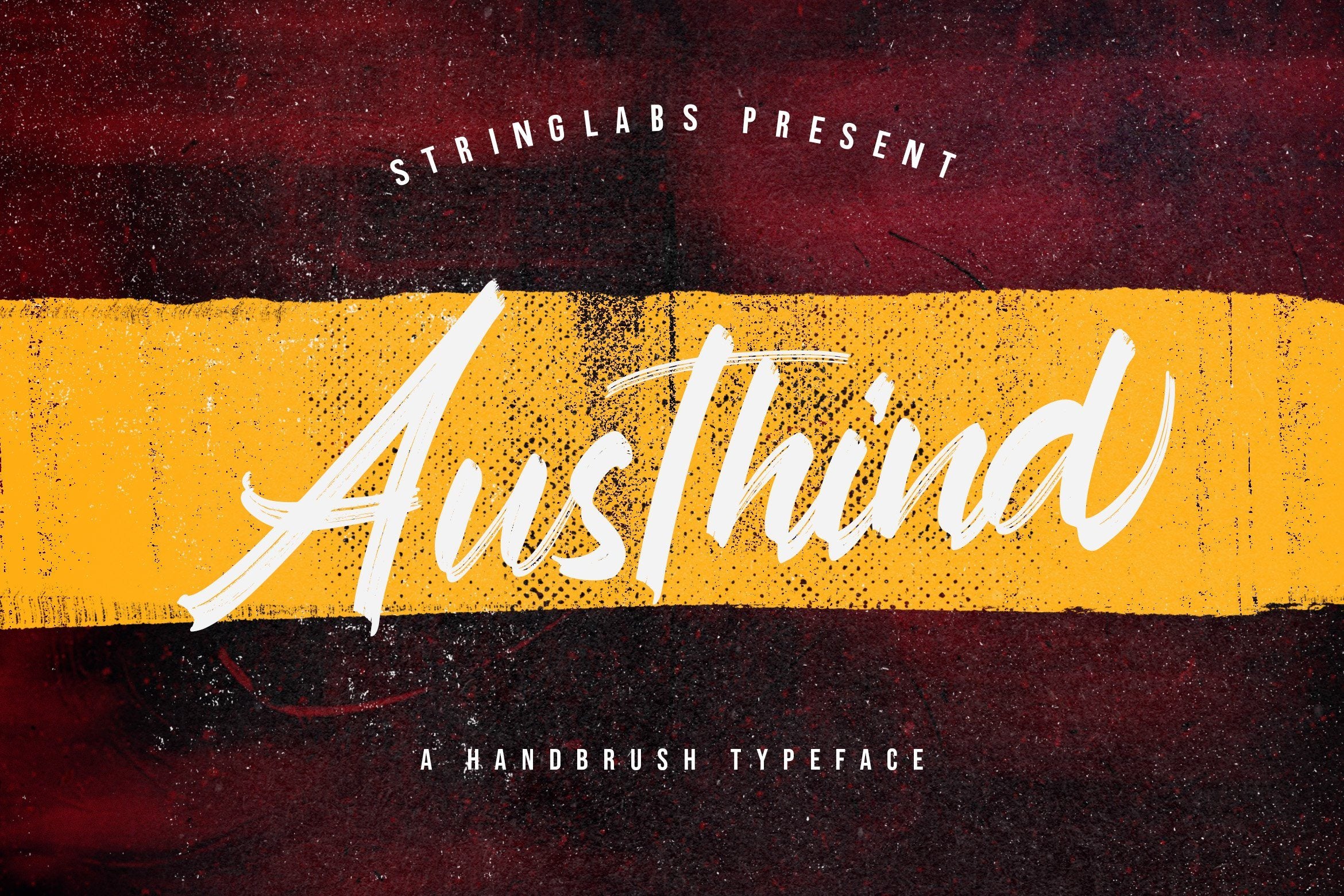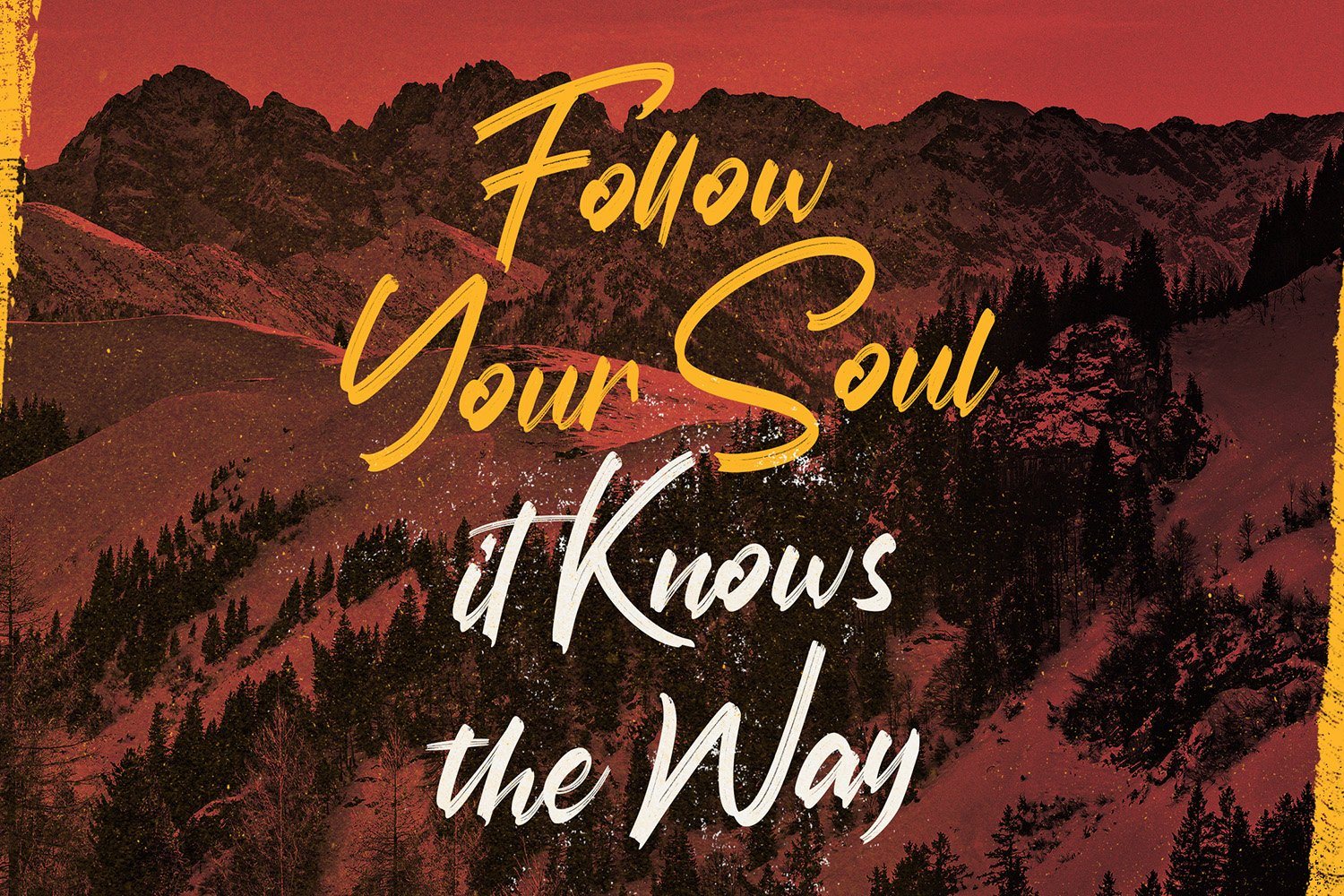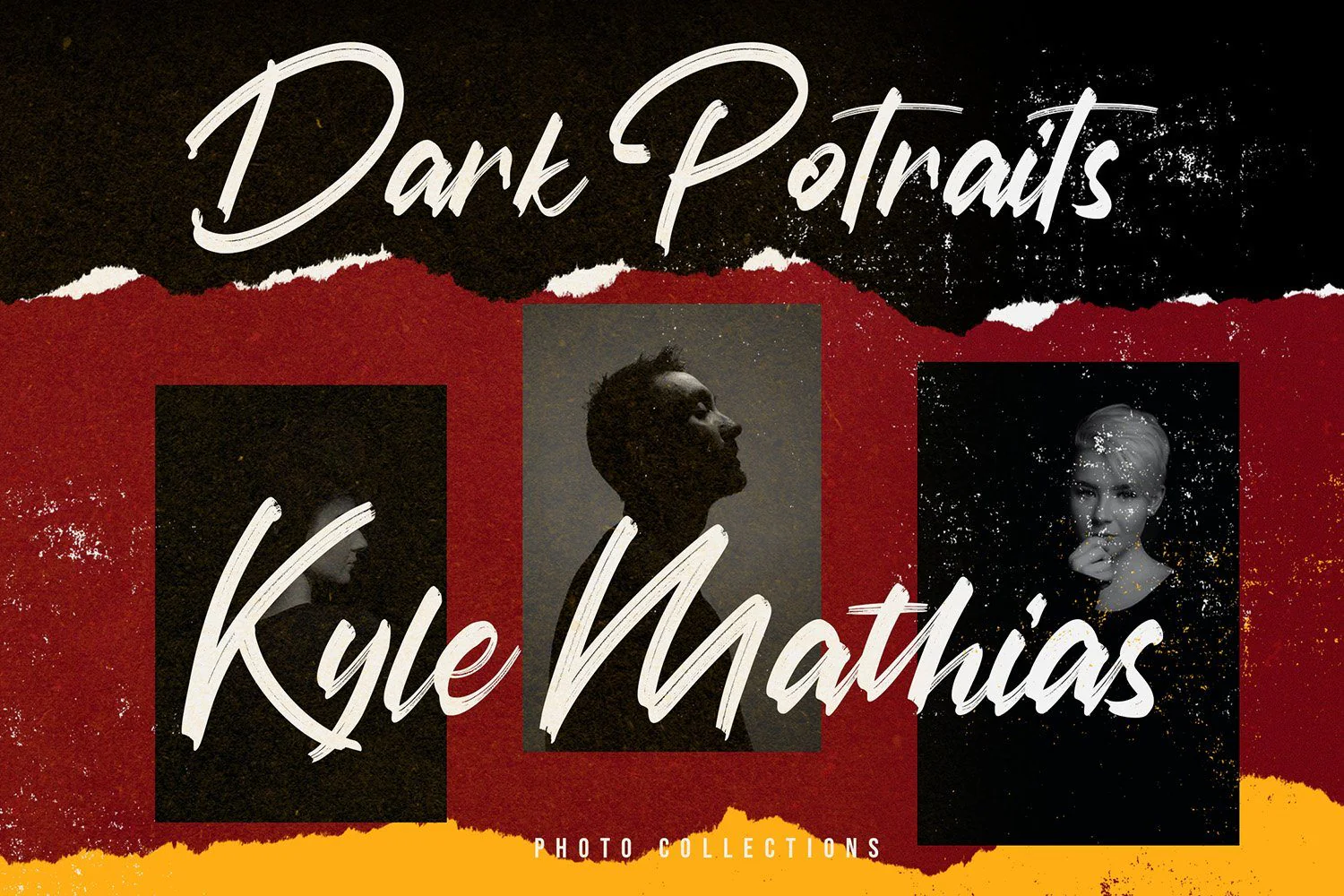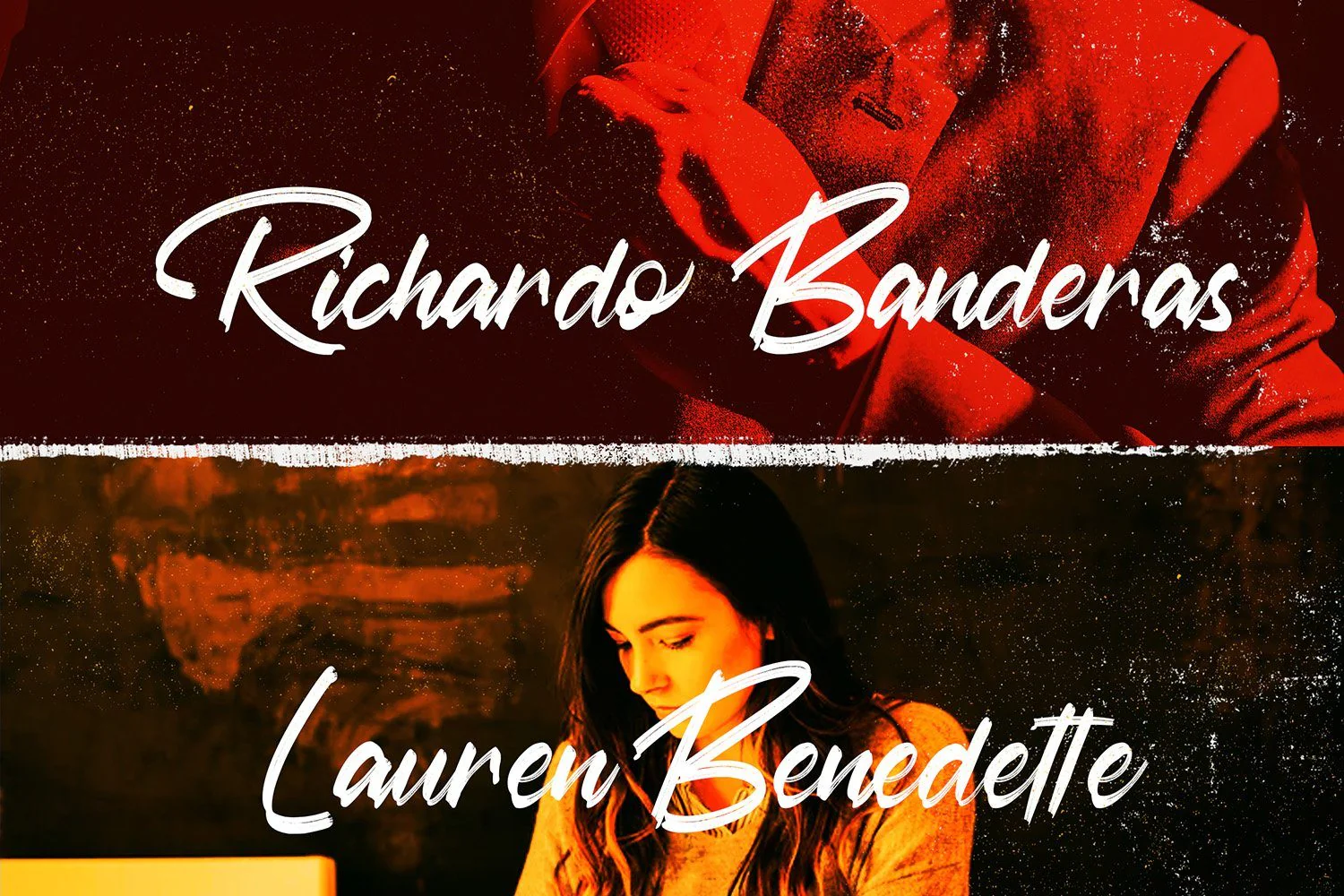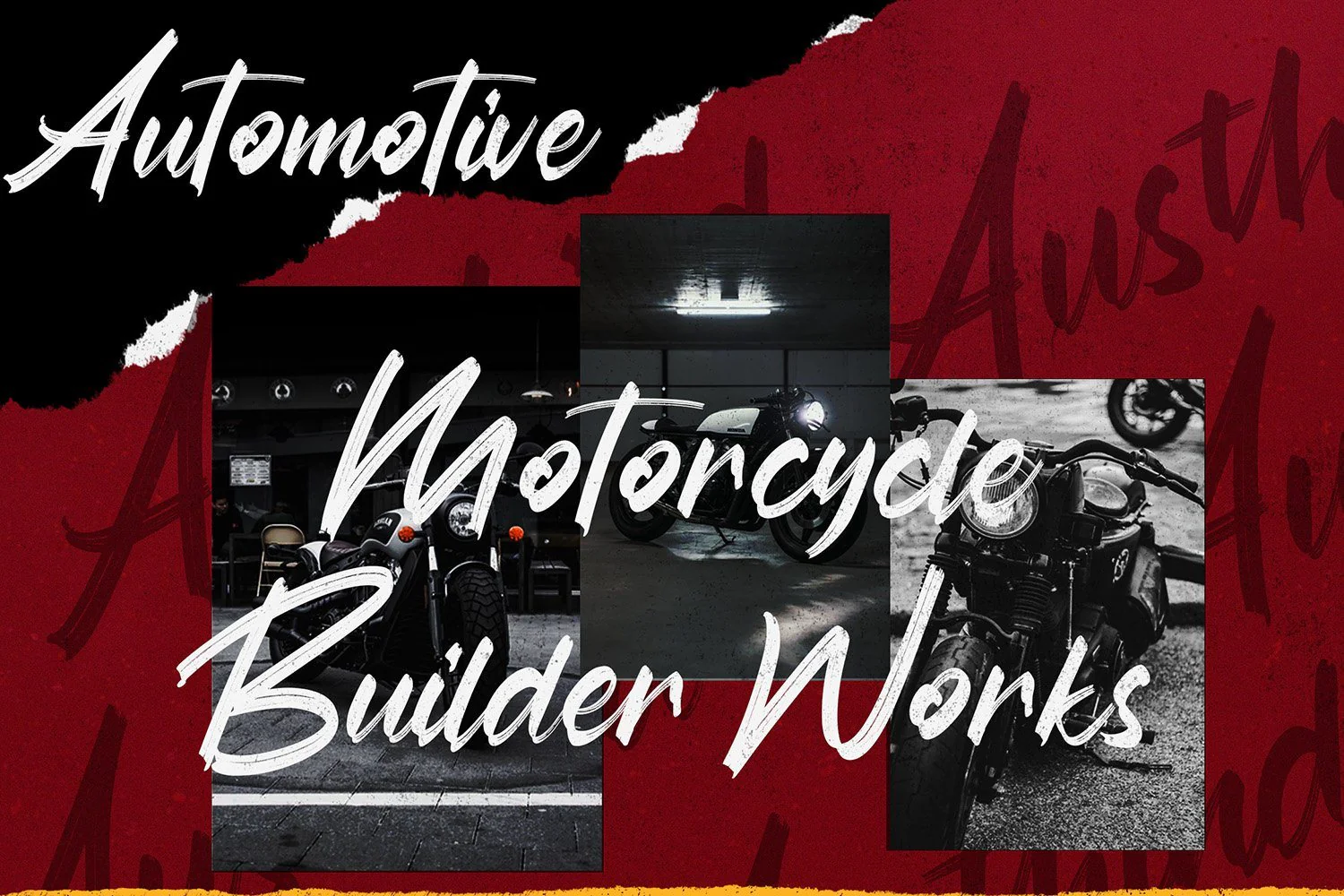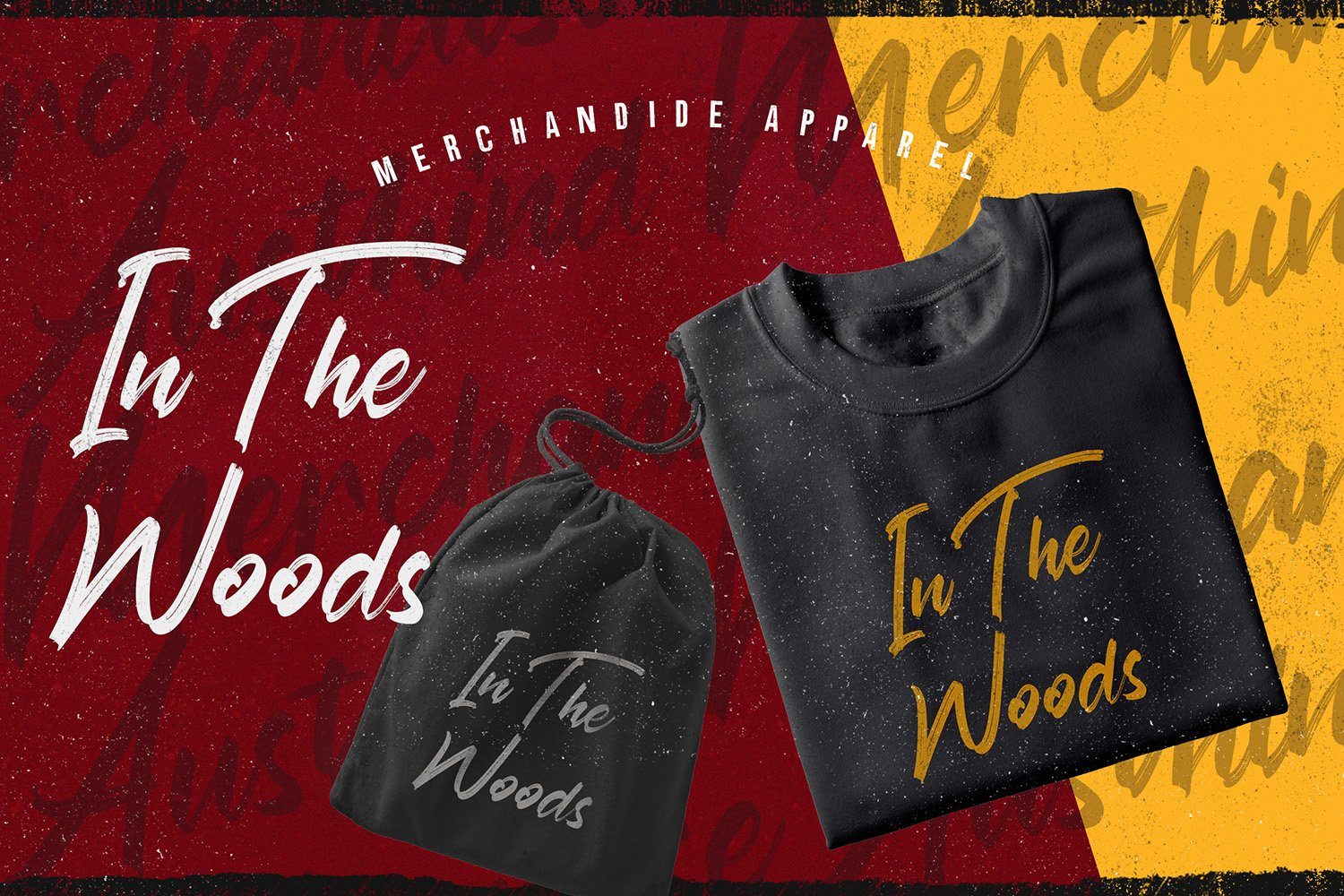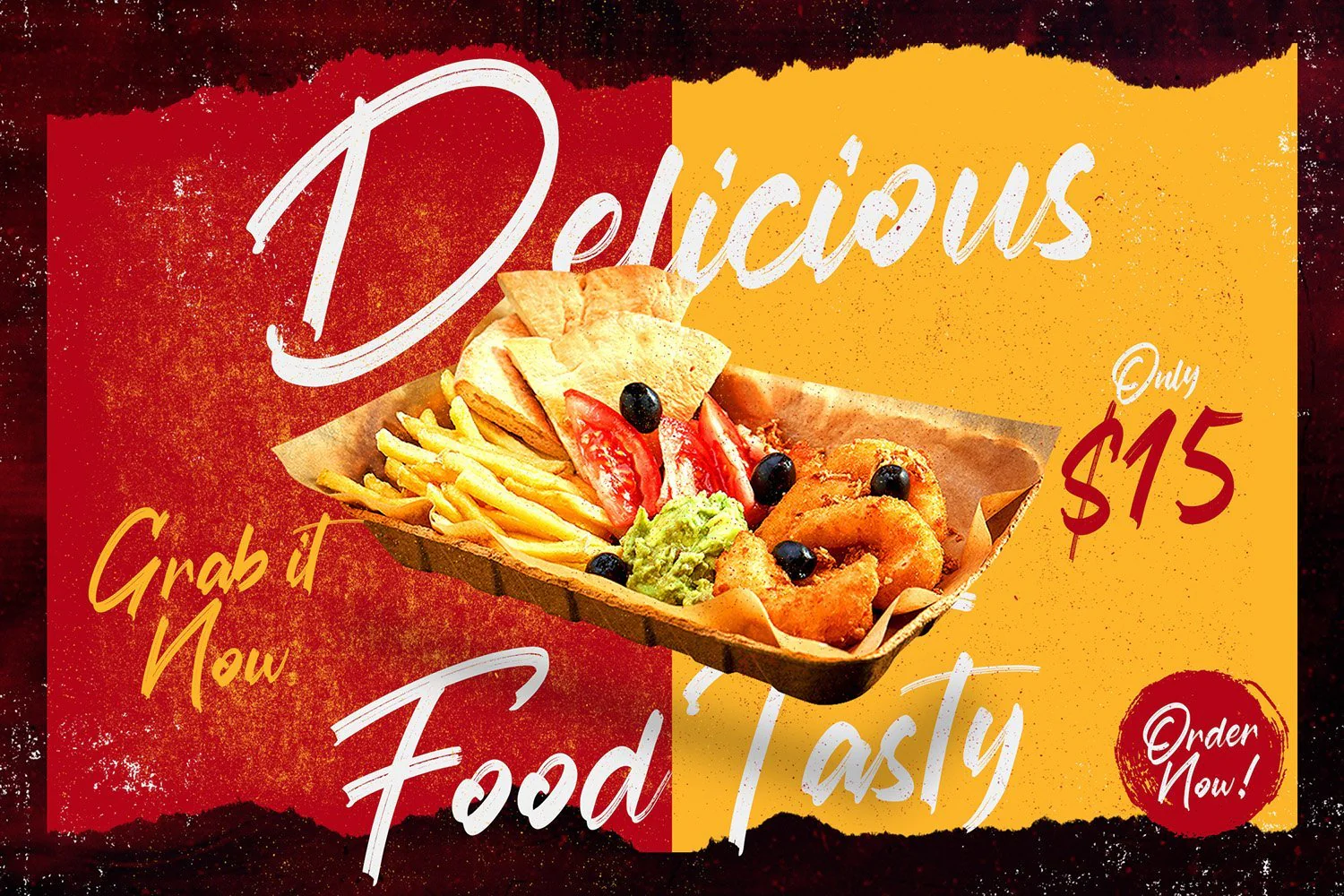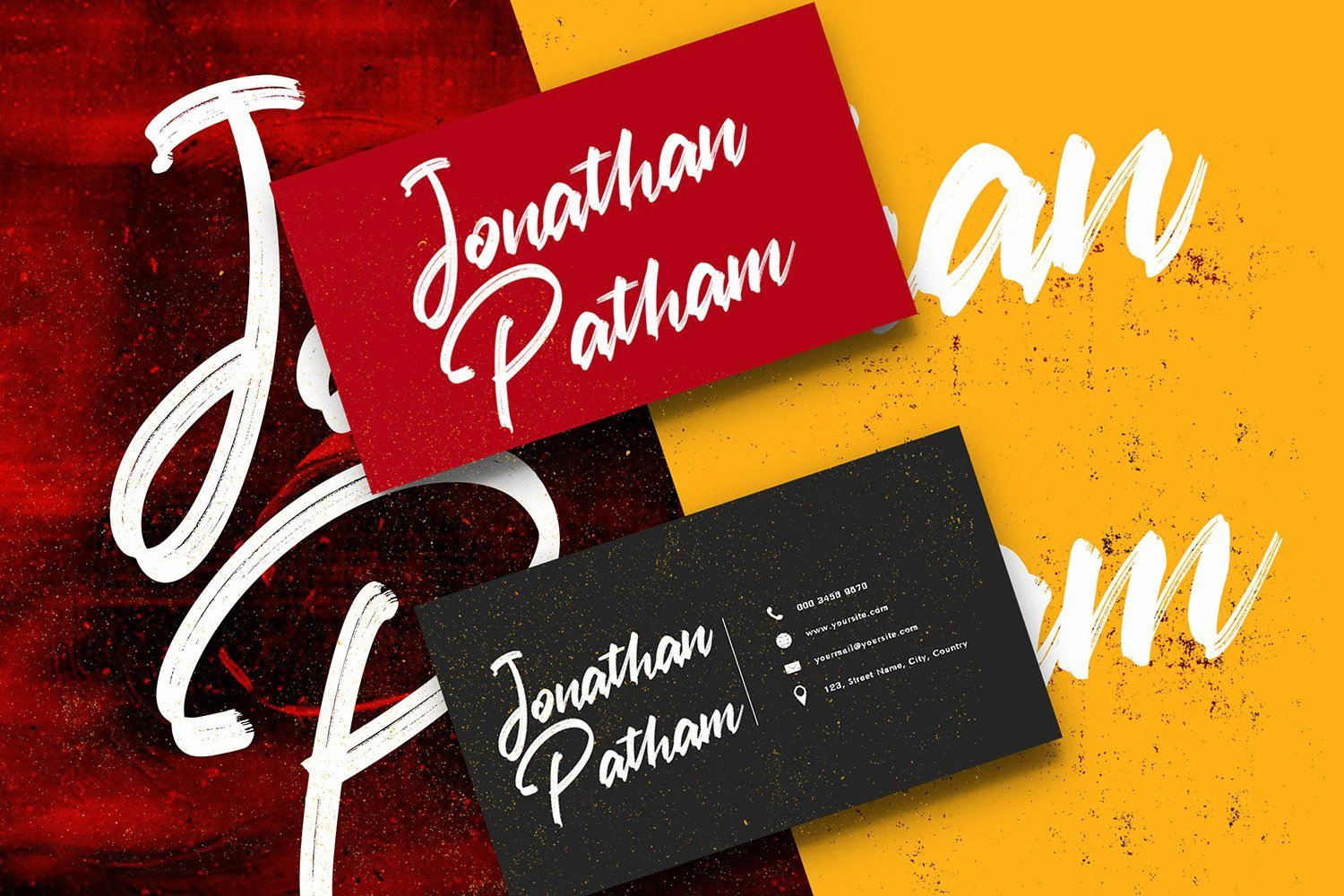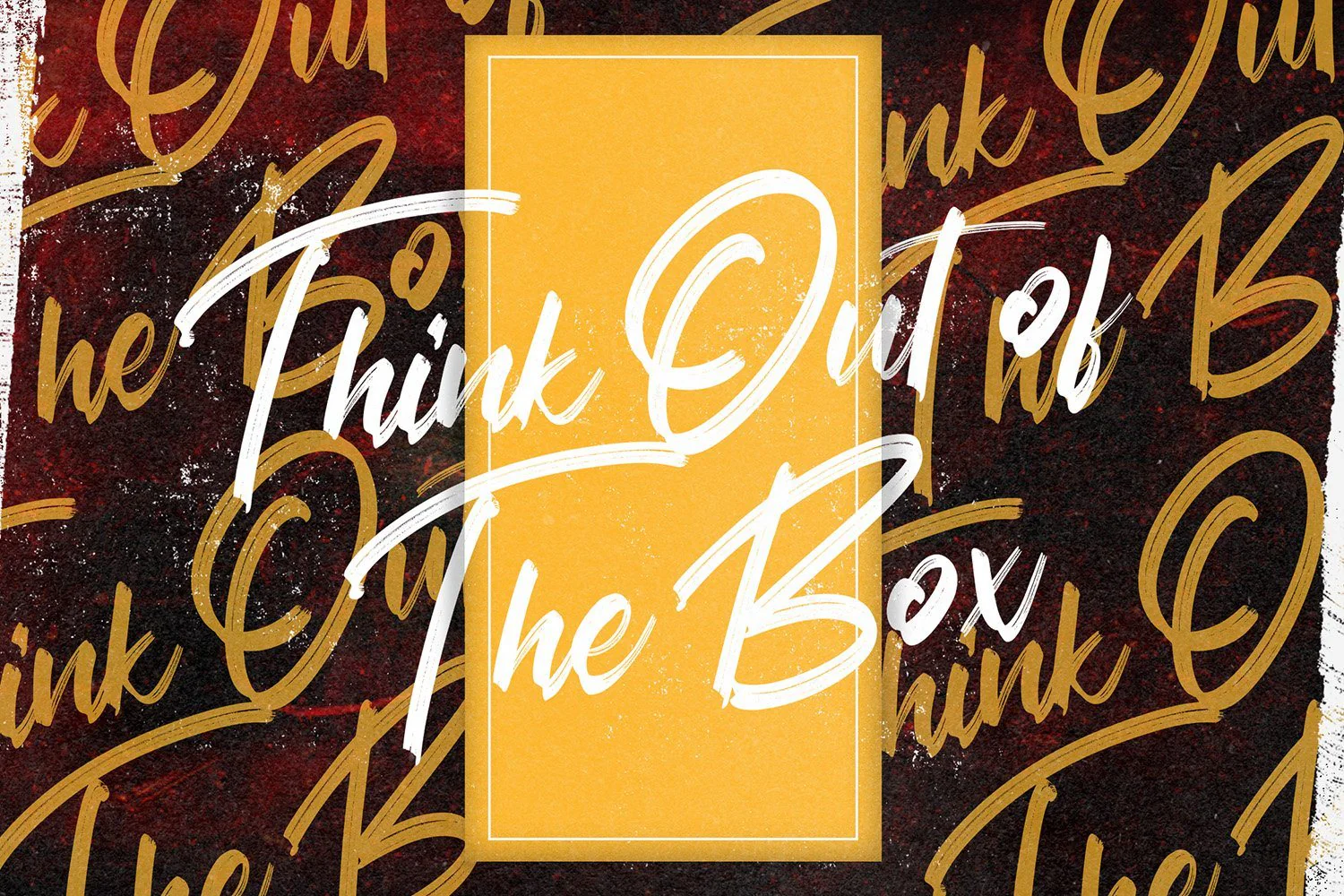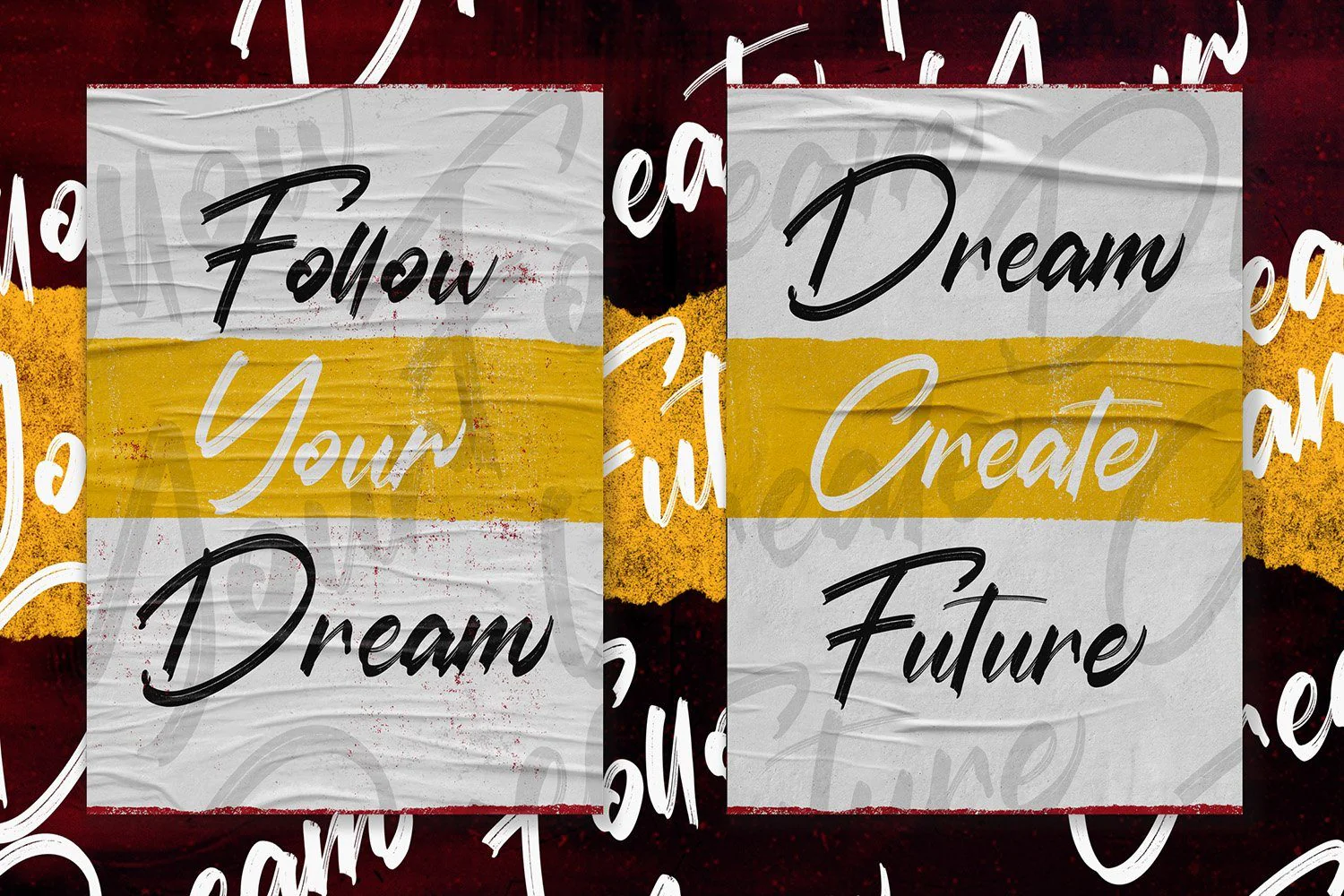
Austhind - Stylish Brush Font
Introducing Austhind - Stylish Brush Font
Austhind is a script font with stylish hand brush style. The Austhind font made with digital brush pen strokes that making this font look authentic and unique concept. This font is perfect for fashion brand, wedding invitation, business card, logo brand, signature, and then calligraphy.
Introducing Austhind - Stylish Brush Font
Austhind is a script font with stylish hand brush style. The Austhind font made with digital brush pen strokes that making this font look authentic and unique concept. This font is perfect for fashion brand, wedding invitation, business card, logo brand, signature, and then calligraphy.